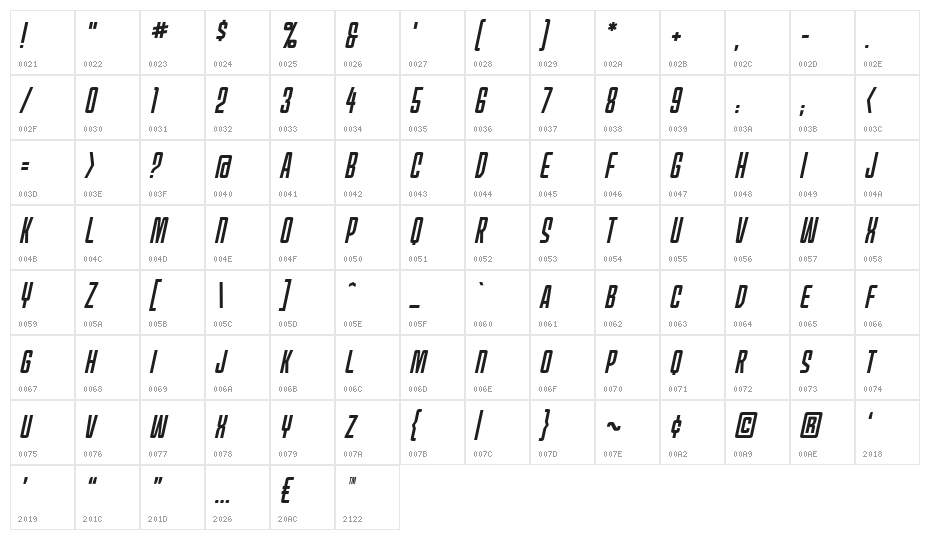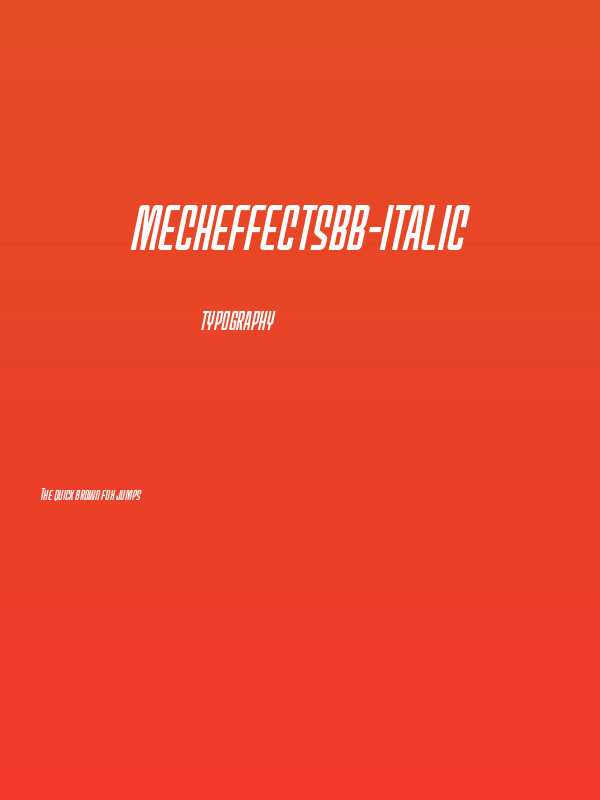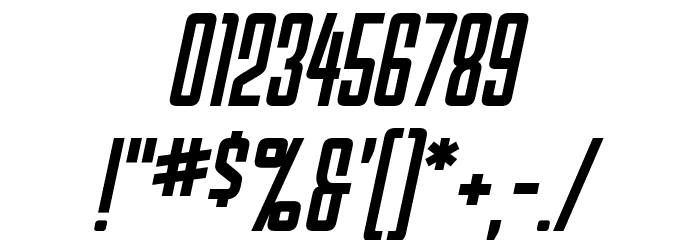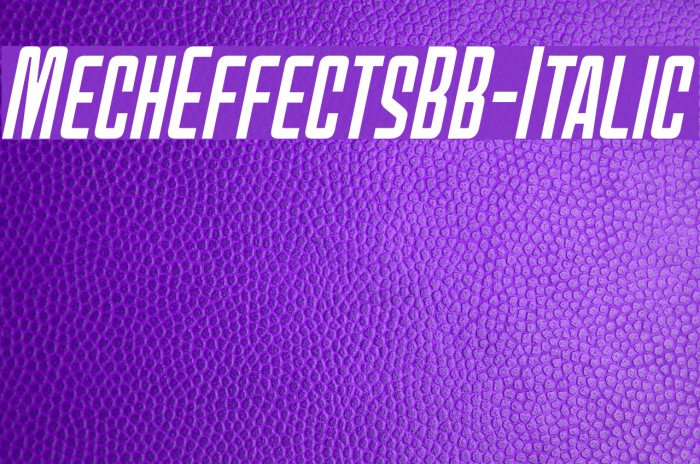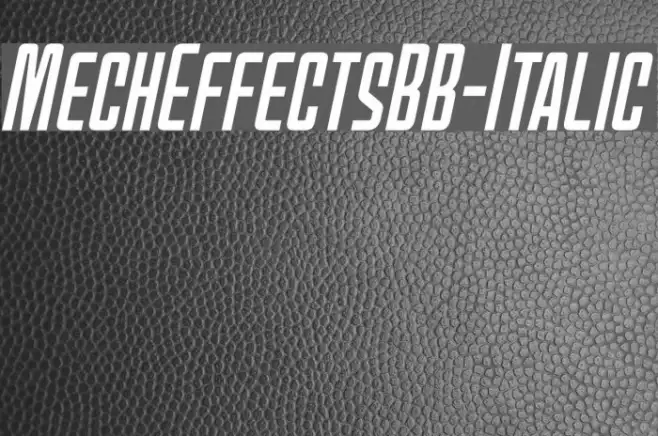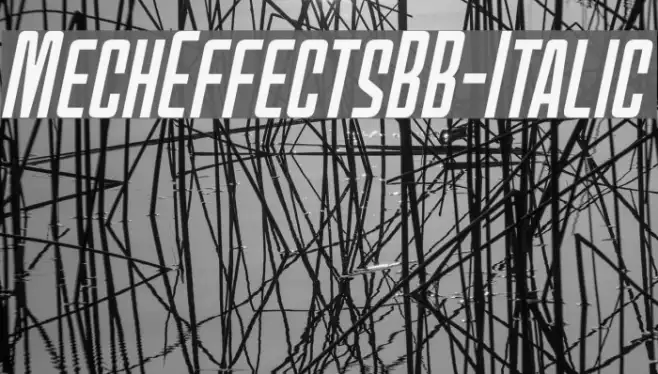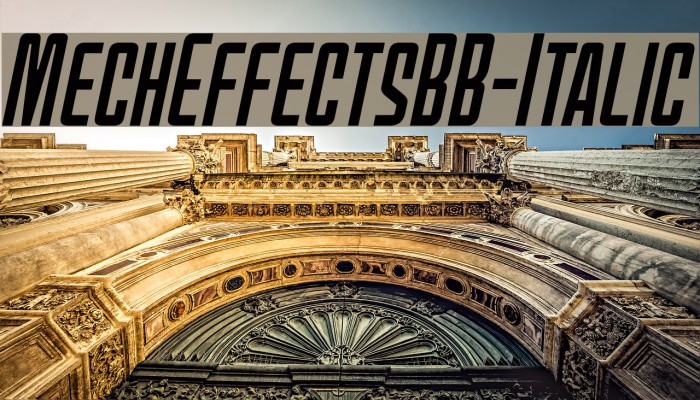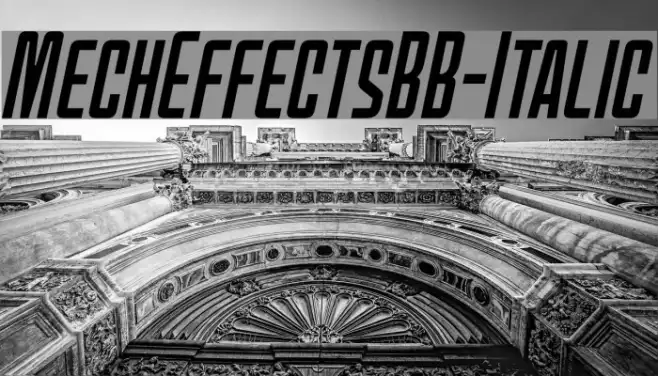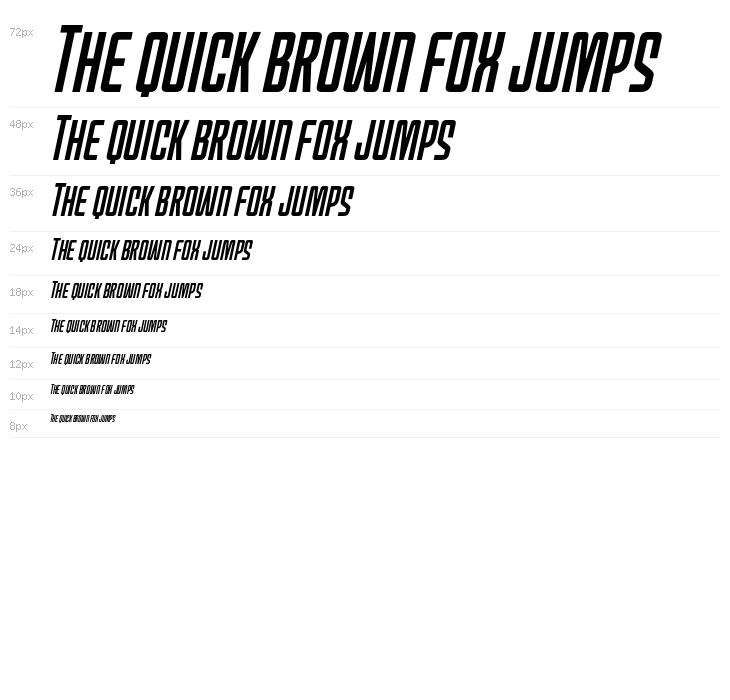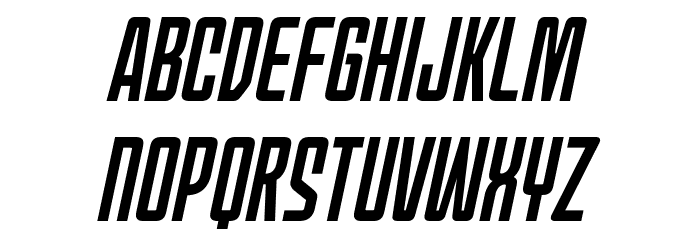
MechEffectsBB-Italic Font
MechEffectsBB-Italic Description
This font features a bold, italicized style with a modern and dynamic appearance. The characters are slightly condensed, giving it a sleek and streamlined look. The strokes are consistent in thickness, providing a medium contrast that enhances readability while maintaining a strong visual impact. The angular design and slanted orientation suggest movement and speed, making it ideal for projects that require a sense of urgency or modernity. The font includes a full set of uppercase and lowercase letters, numbers, and a variety of special characters, ensuring versatility in design applications.
| Proposed Projects | Ideal for sports branding, automotive designs, tech-related projects, and dynamic headlines. |